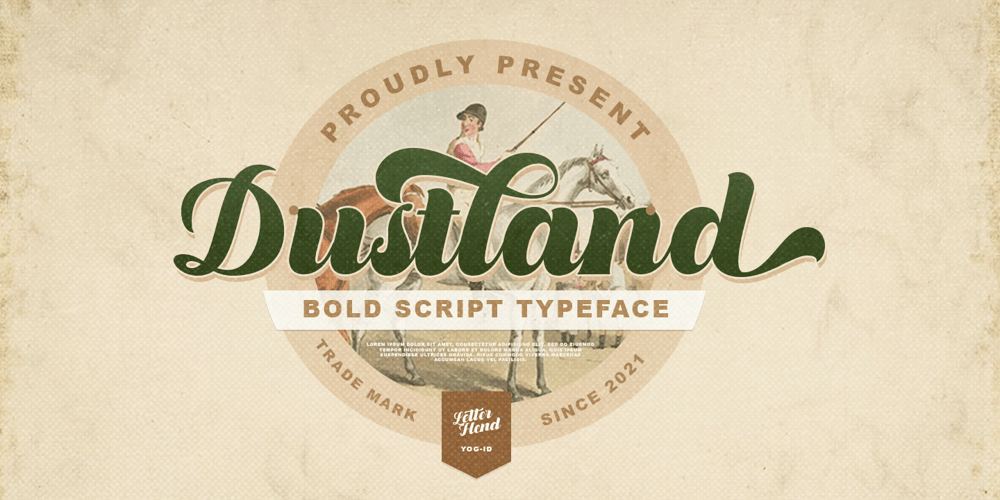
Dustland Font Family was designed by Hendry Juanda and published by Letterhend. Dustland contains 1 styles and family package options. Introducing, Dustland – a standout bold script with a touch of vintage look and feel. This type of font perfectly made to be applied especially in logo, headline, signage and the other various formal forms such as invitations, labels, logos, magazines, books, greeting / wedding cards, packaging, fashion, make up, stationery, novels, labels or any type of advertising purpose.Features :- uppercase & lowercase- numbers and punctuation- multilingual- alternates / swashes and ligatures- PUA encodedWe highly recommend using a program that supports OpenType features and Glyphs panels like many of Adobe apps and Corel Draw, so you can see and access all Glyph variations. How to access opentype feature : letterhend.com/tutorials/using-opentype-feature-in-any-software/Email us to letterhend@gmail.com if you need something! Happy Designing!